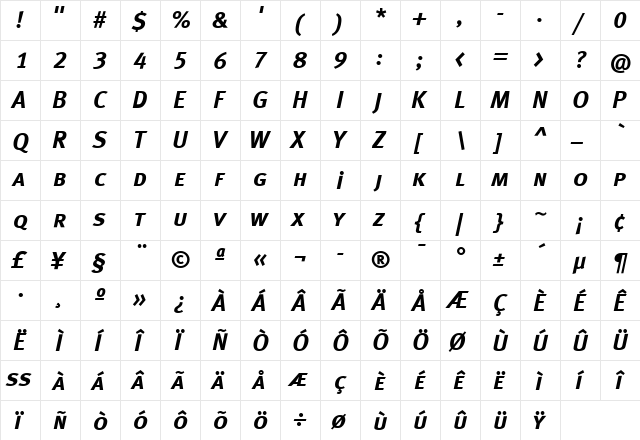
MetaBoldTurkLF Medium
Design Context for MetaBoldTurkLF Typeface
MetaBoldTurkLF offers clean, dependable letterforms without strong stylistic allegiance, making it a practical choice for designers who need flexibility. Its bold stroke weight gives it real presence on the page.